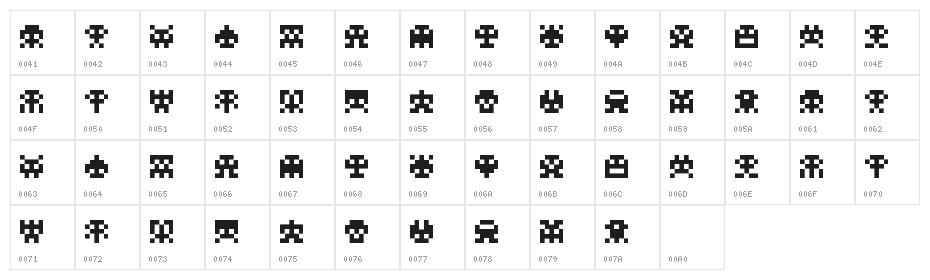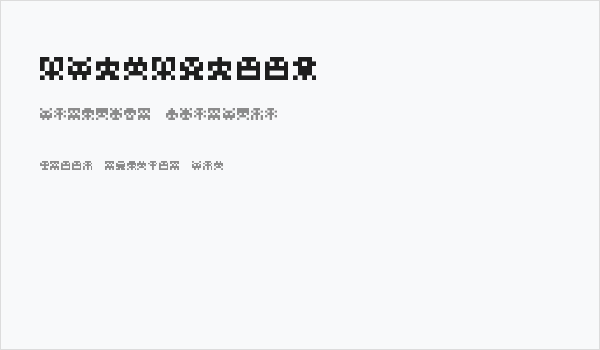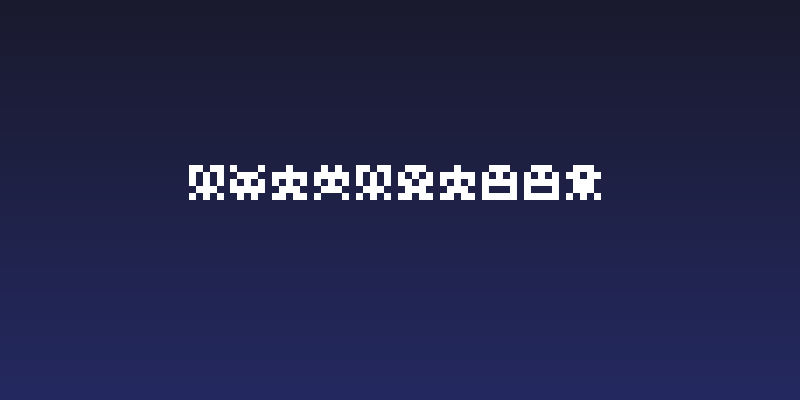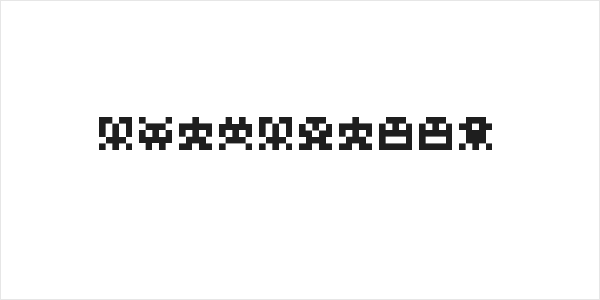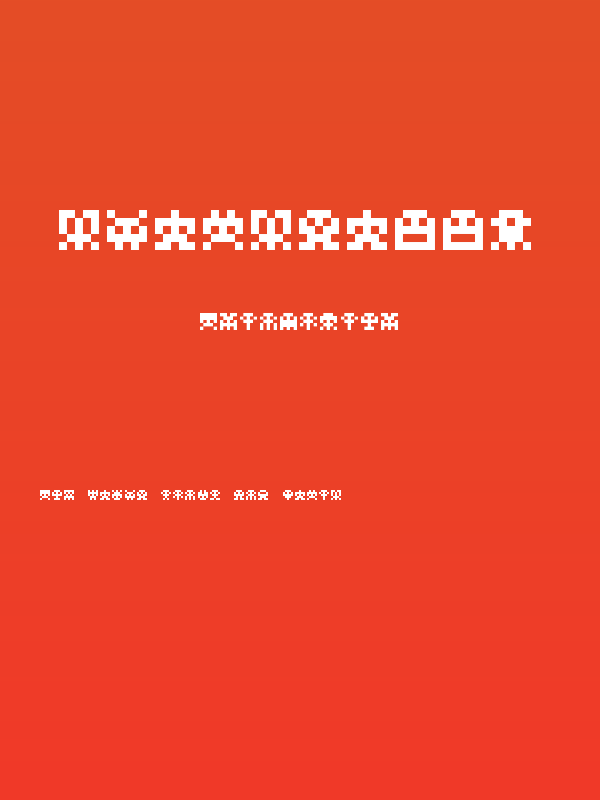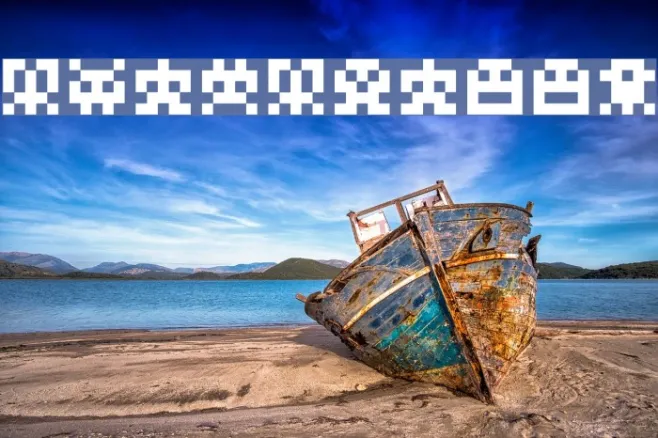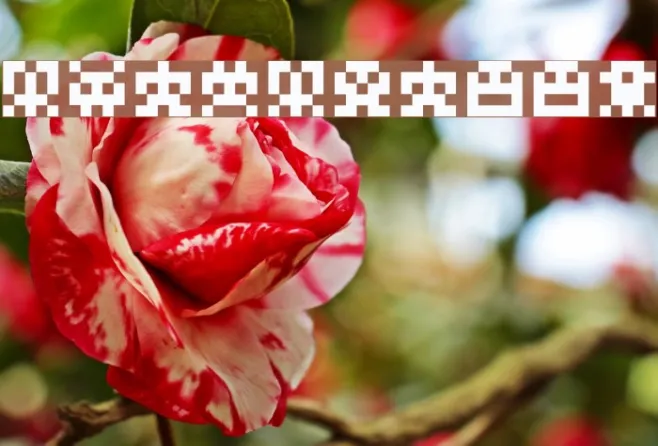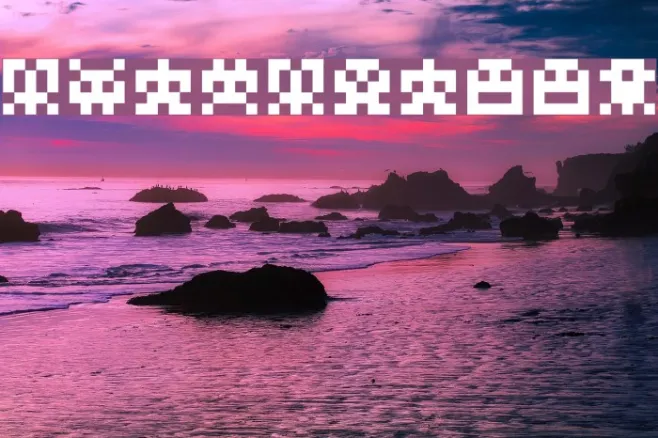
Scumskullz Font
Scumskullz Description
This design features a series of pixelated skulls arranged in a grid-like pattern. Each skull is composed of simple, blocky shapes that give it a retro, video game aesthetic. The repetition and uniformity of the skulls create a striking visual impact, reminiscent of classic arcade graphics. The bold, black shapes stand out starkly against the white background, enhancing the overall contrast and making the design highly noticeable. The pixel art style evokes a sense of nostalgia, appealing to fans of vintage gaming and digital art.
| Use Case | Logos, Merchandise, Digital Art |
| Proposed Projects | Ideal for retro-themed video games, digital art projects, or merchandise targeting fans of classic arcade aesthetics. |